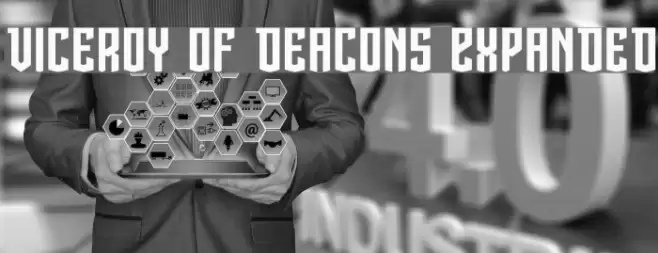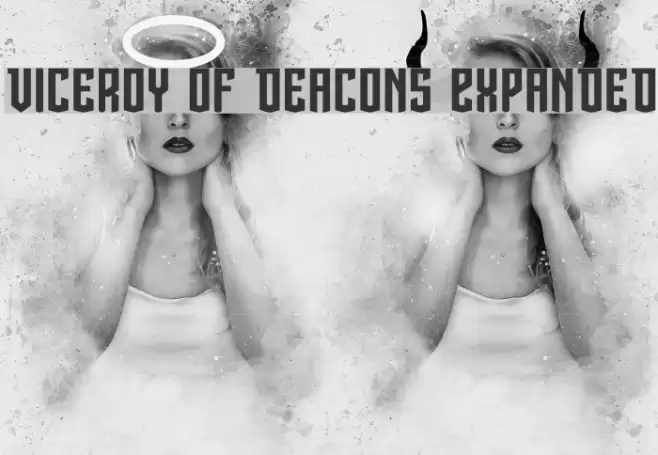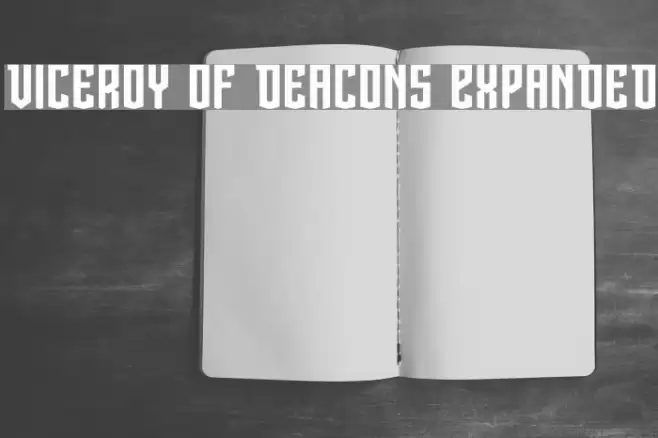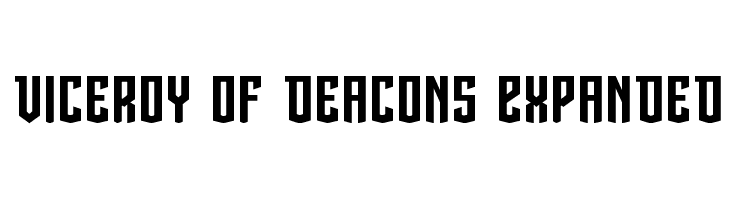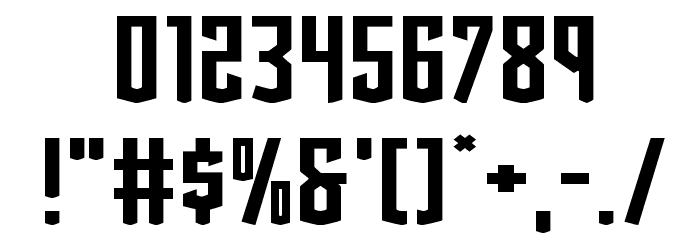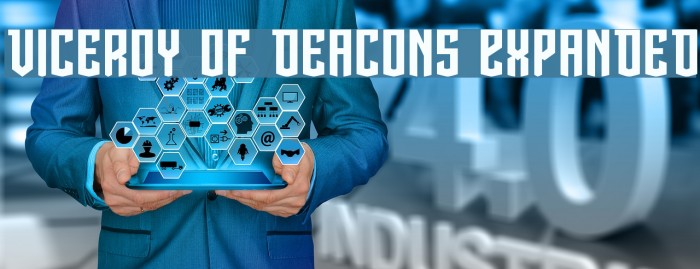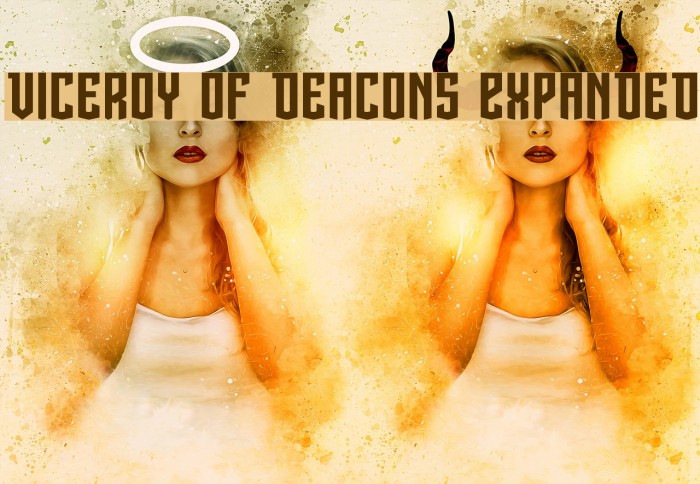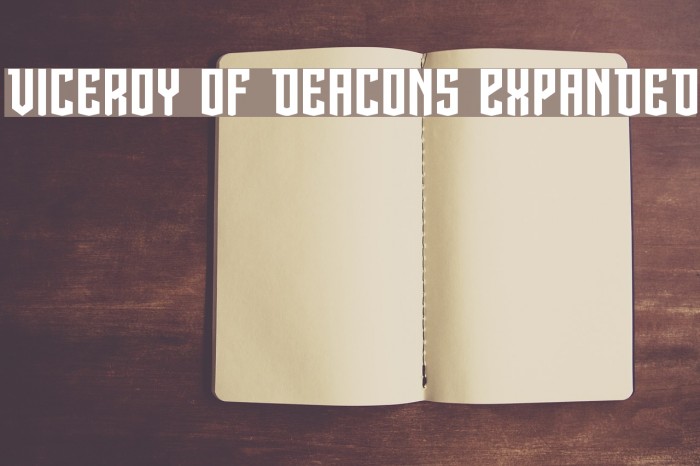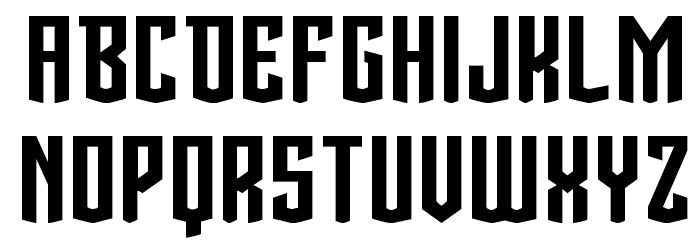
Viceroy of Deacons Expanded Font
Viceroy of Deacons Expanded Description
This font features a bold and striking design with a distinctly geometric and angular style. The characters are uniformly thick, creating a strong visual impact. The uppercase letters are particularly prominent, with sharp edges and a consistent height that gives them a commanding presence. The numerals and special characters maintain this boldness, ensuring a cohesive look across all elements. The font's expanded width adds to its imposing nature, making it ideal for attention-grabbing headlines or titles. Its unique style is reminiscent of vintage signage or retro posters, yet it retains a modern edge that makes it versatile for various design projects.
A bold, geometric font with an expanded width and vintage-modern appeal from Modern fonts.
- Proposed Projects: Ideal for posters, branding, headlines, and any project requiring a bold, eye-catching typeface.
- Overall Style: Vintage, Modern